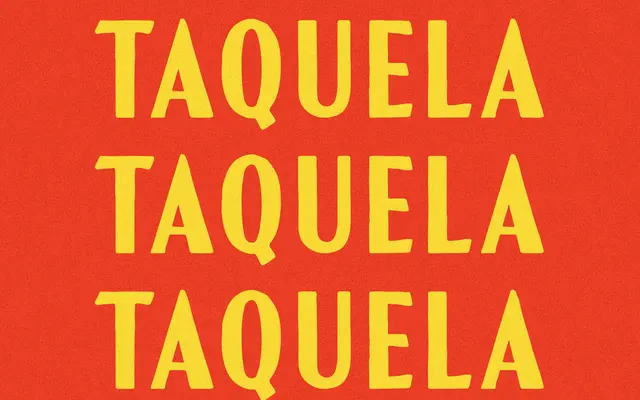
Benditos
A single-weight display face drawn from vintage hotel matchbook lettering, with enough structure to sit comfortably in contemporary branding work.
Drawn from the aesthetic of vintage hotel matchbooks, Benditos brings a mid-century retro quality to display and branding contexts without feeling purely nostalgic. It ships as a single Regular weight in OTF, WOFF and WOFF2 formats, with basic Latin coverage and a limited set of accented characters. Suited to logos, packaging and campaign work where a warm, slightly irreverent personality is appropriate.
Inspired by vintage hotel matchbooks, Benditos is a display typeface with a retro character that places it firmly in the display category, drawing on mid-century ephemera rather than any formal typographic tradition.